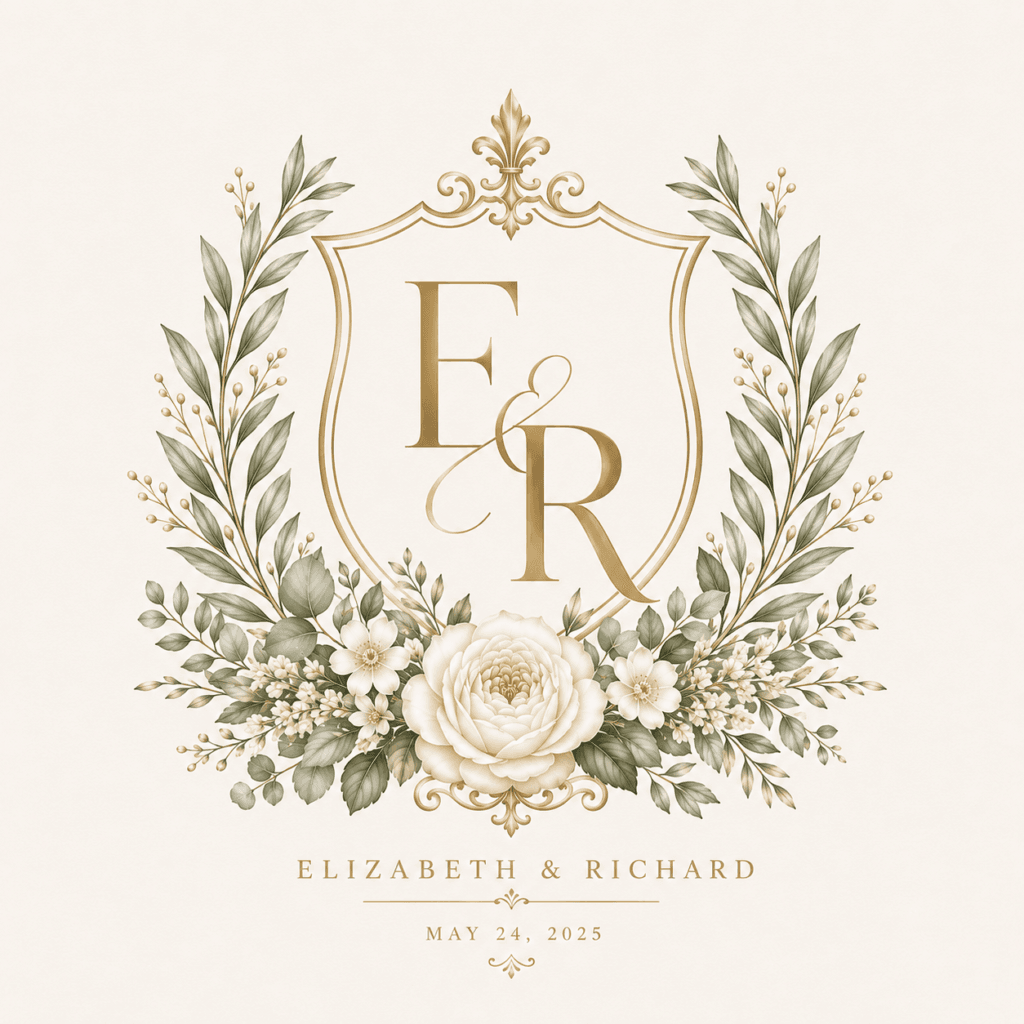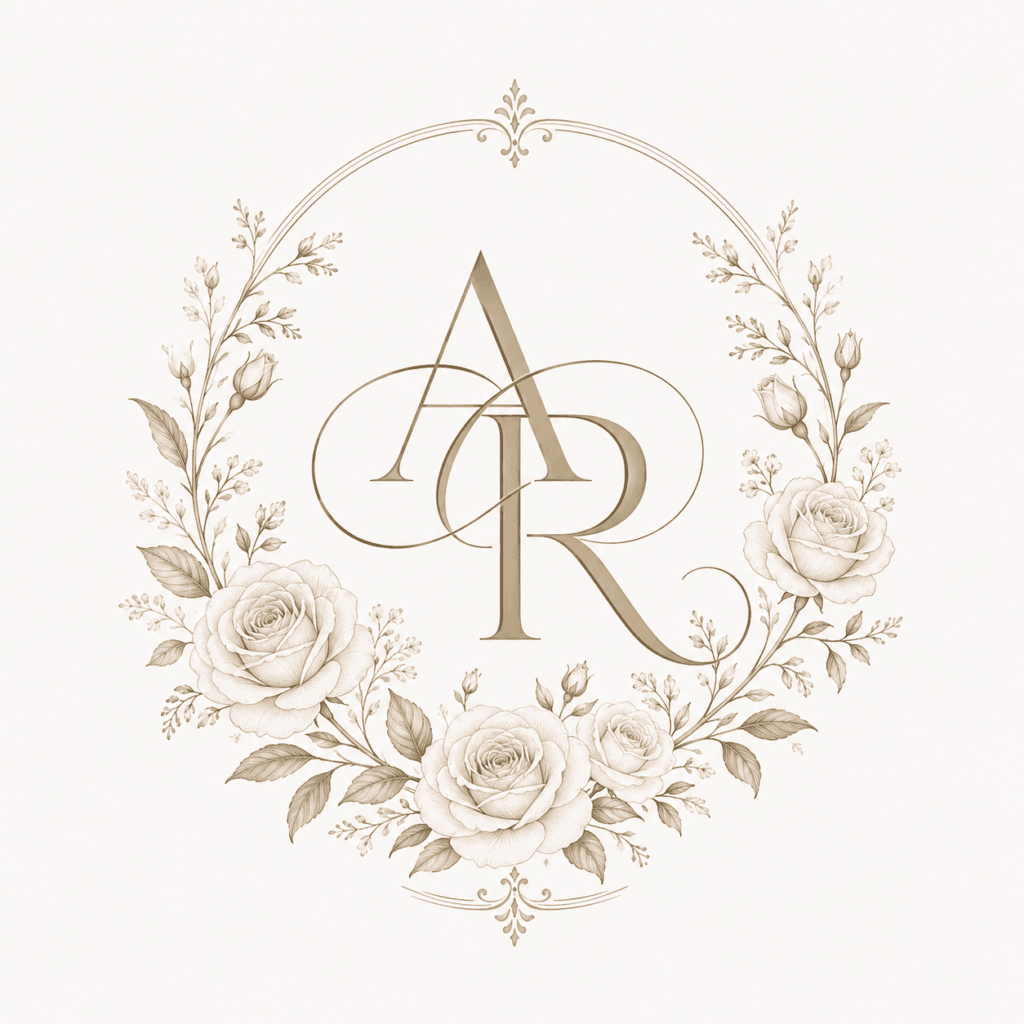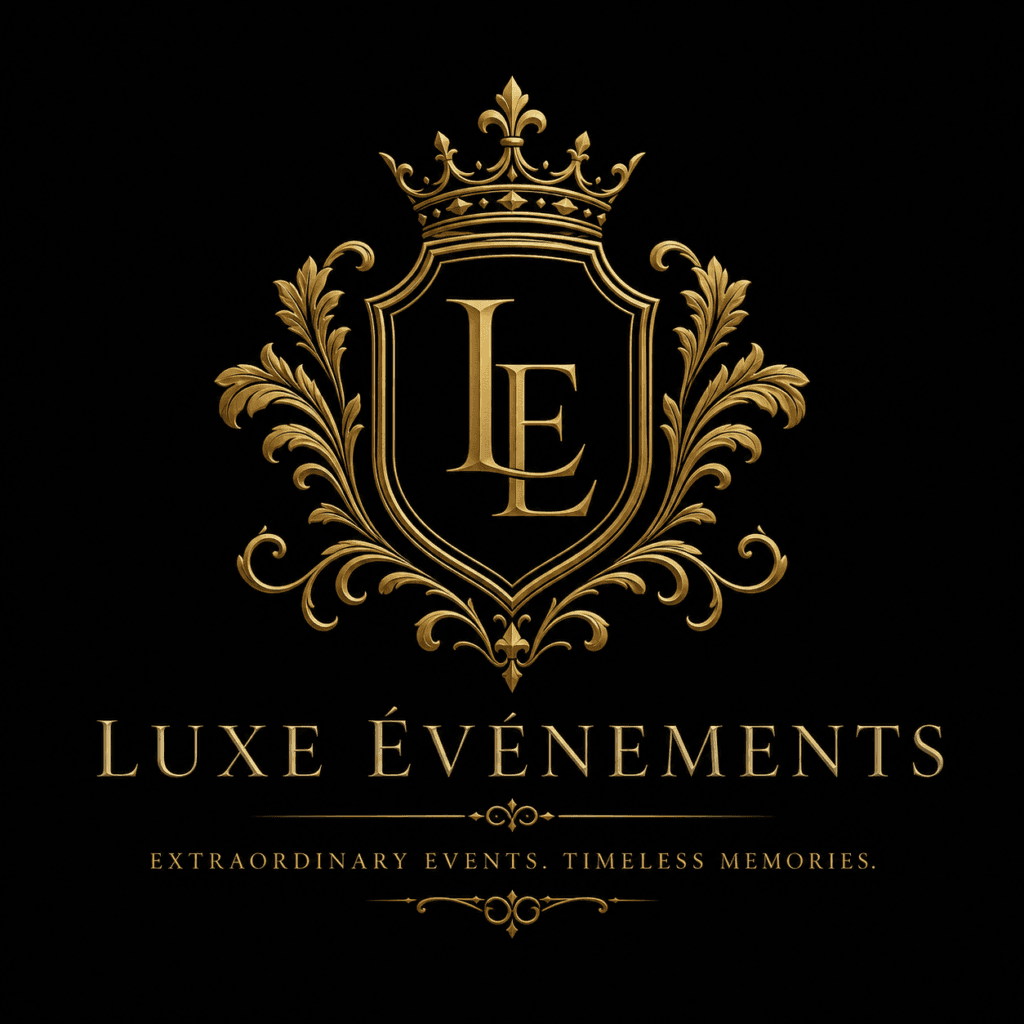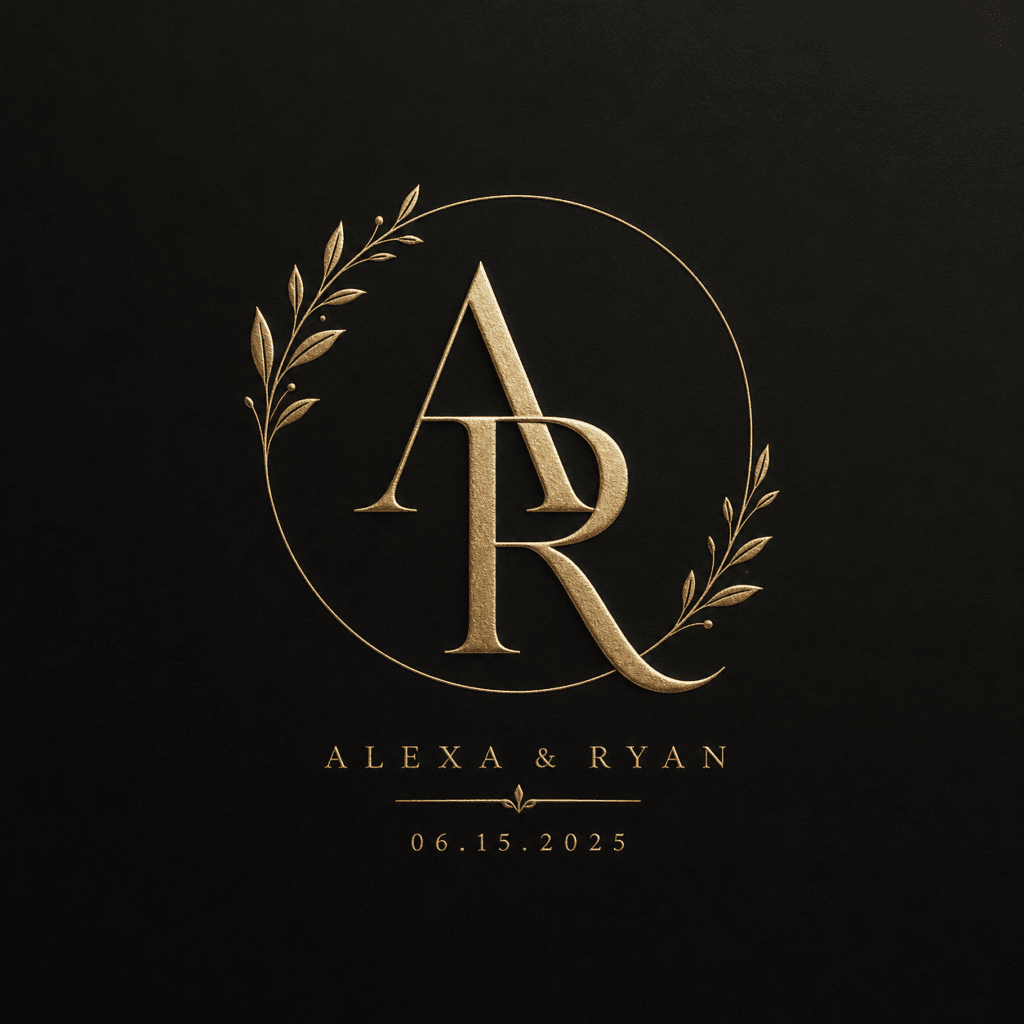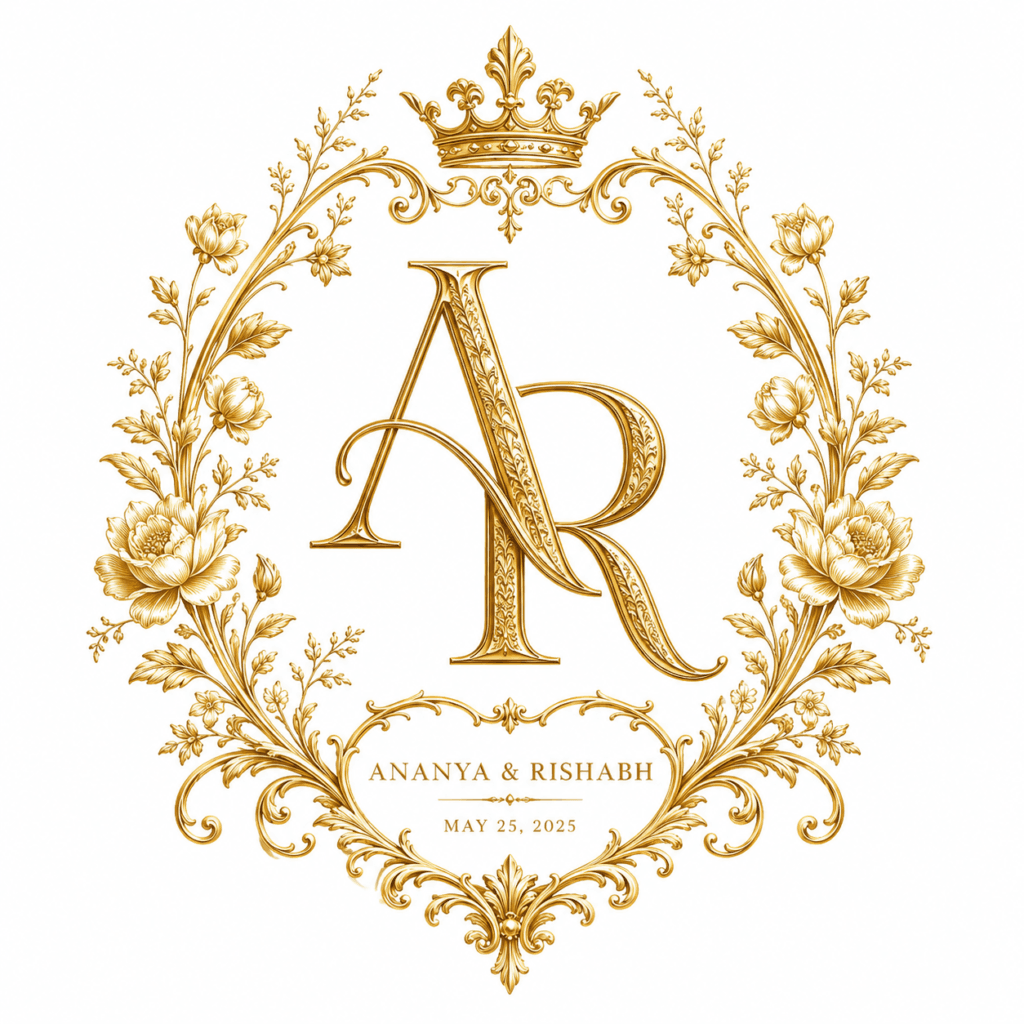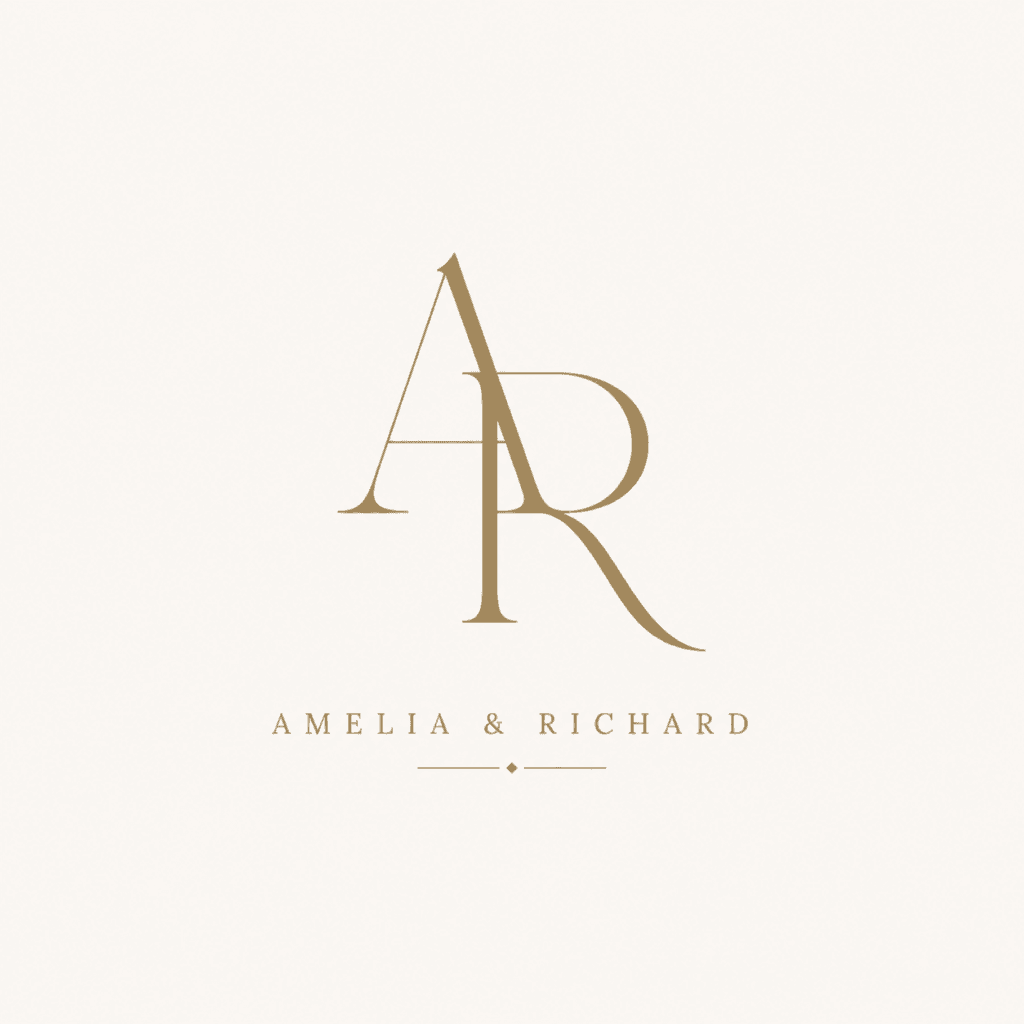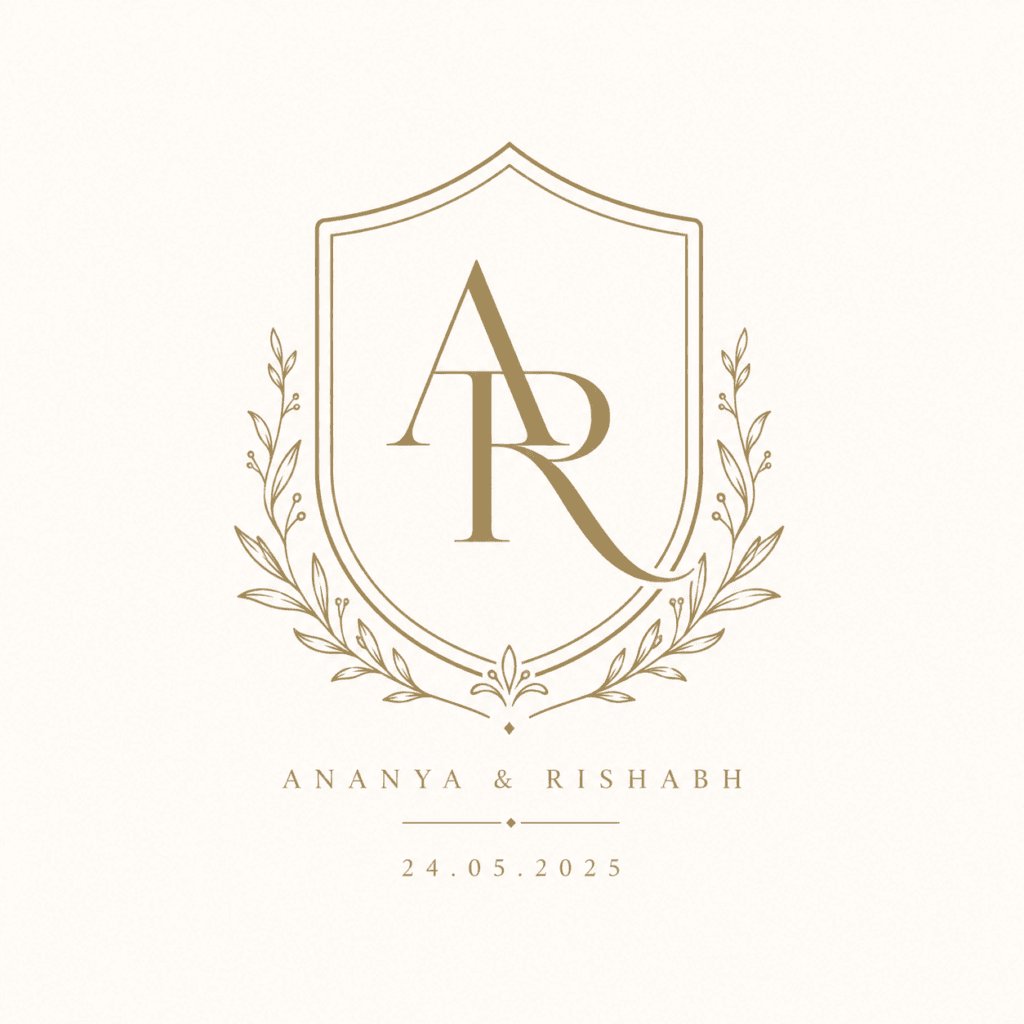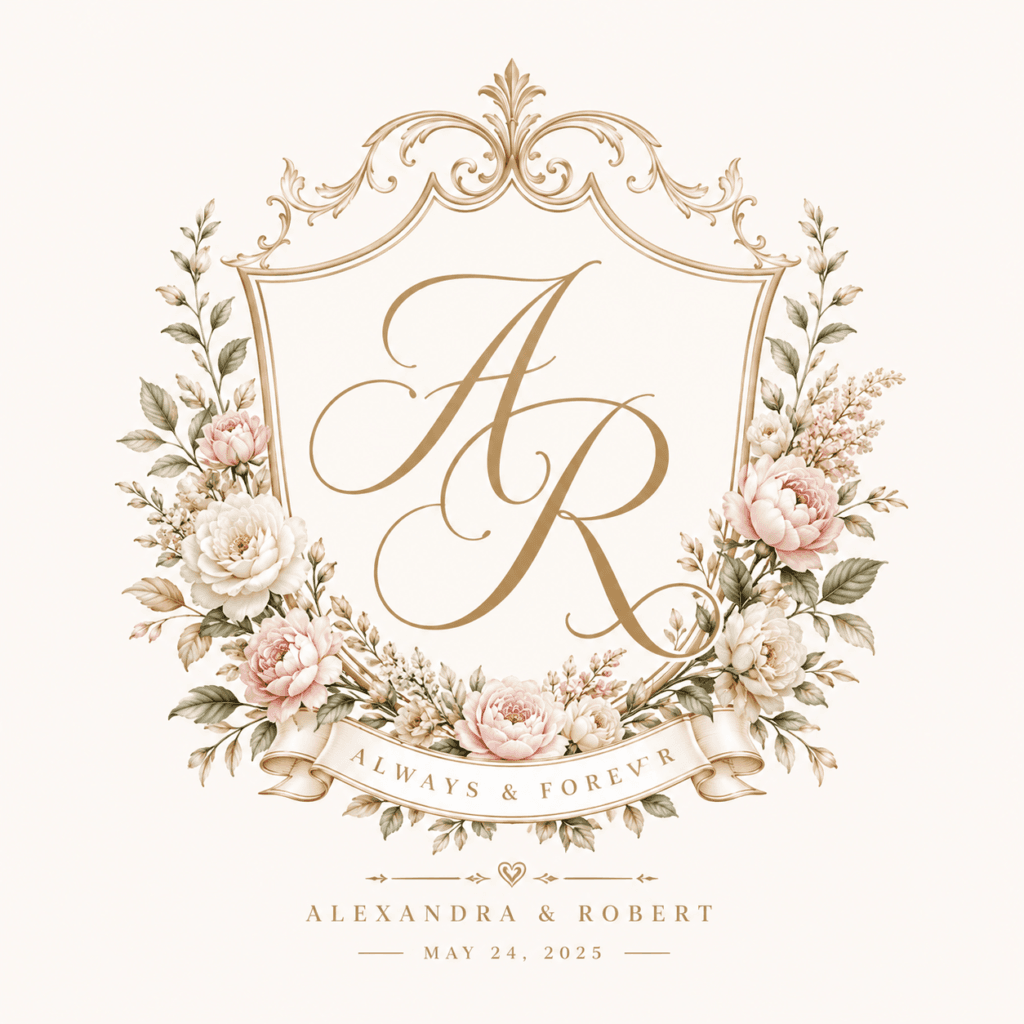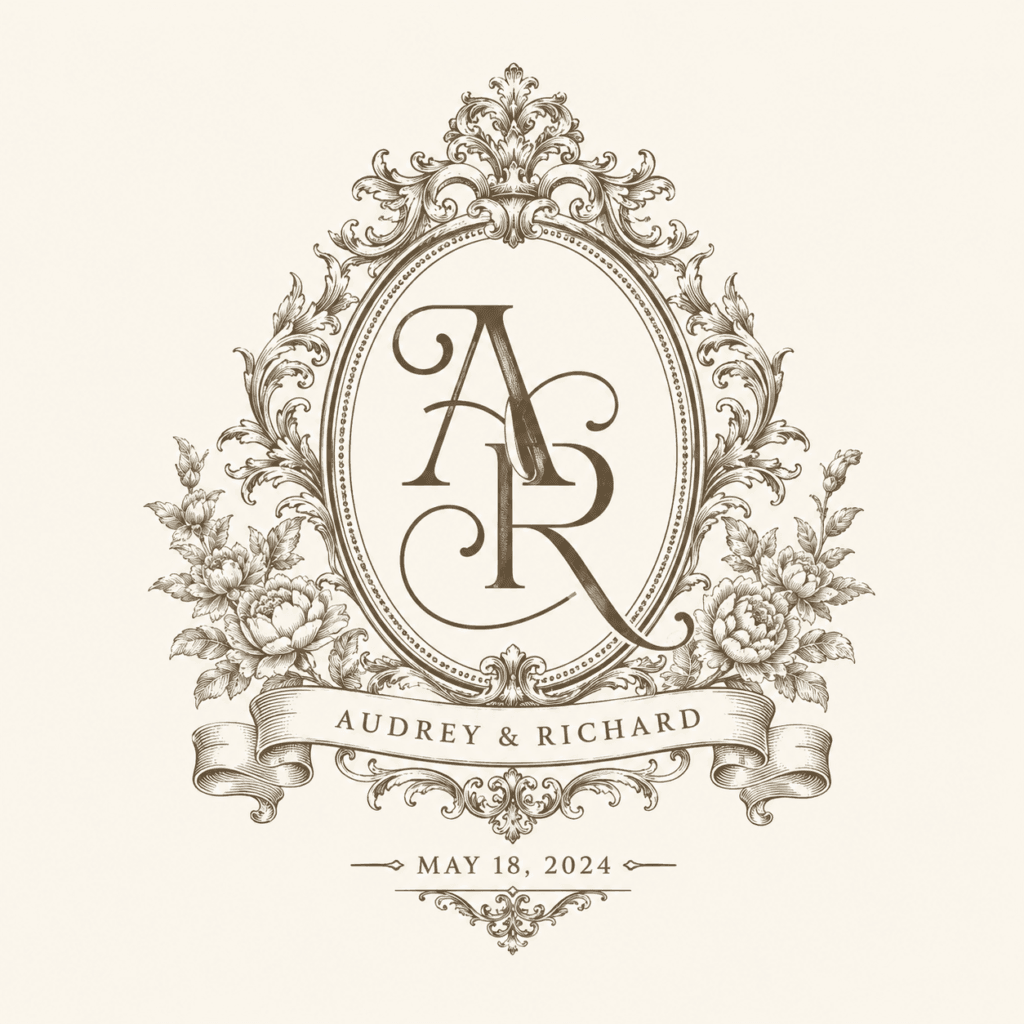
Using AI monogram logo prompts has become one of the fastest ways for wedding designers to explore elegant branding concepts, luxury crests, and personalized visual identities. Wedding branding often revolves around initials, romantic symbolism, floral elements, and timeless typography. With the right prompts, AI tools can generate beautiful monogram concepts that serve as inspiration for invitations, stationery, wedding websites, and event branding.
Modern wedding clients expect unique and personalized designs. Traditional monogram creation can take hours of sketching and refinement. However, AI monogram logo prompts help designers visualize multiple directions quickly while maintaining creative flexibility. These concepts can then be refined into professional branding systems.
From luxury wedding crests to minimal monogram marks, AI-generated concepts offer valuable starting points for creative exploration. The most effective prompts combine typography, decorative details, floral elements, and brand personality to create memorable designs.
In this guide, you will discover practical AI monogram logo prompts, copy-paste examples, wedding branding ideas, and creative techniques that help designers create elegant and timeless wedding identities.
Why AI Monogram Logo Prompts Are Useful for Wedding Designers
Wedding branding often requires custom design work.
Strong AI monogram logo prompts help designers:
- Generate concepts faster
- Explore multiple design directions
- Create luxury branding inspiration
- Visualize crest layouts
- Improve workflow efficiency
- Support client presentations
AI works best as a creative ideation tool rather than a final design solution.
Understanding Wedding Monogram Design
Wedding monograms combine initials into a decorative visual identity.
These designs often appear on:
- Invitations
- Save-the-date cards
- Menus
- Signage
- Wedding websites
- Packaging
Strong AI monogram logo prompts help create concepts that feel elegant and personalized.
Elements of a Successful Wedding Monogram
Professional monograms often include:
- Elegant typography
- Decorative flourishes
- Floral accents
- Symmetrical composition
- Luxury styling
These details help create timeless wedding branding.
AI Monogram Logo Prompts for Luxury Wedding Crests
Luxury wedding crests remain highly popular among couples seeking premium branding.
Prompt Example 1
Luxury wedding crest monogram, intertwined initials, elegant serif typography, symmetrical composition, floral wreath, gold foil aesthetic, premium wedding branding, timeless design, white background, highly detailed
Prompt Example 2
Sophisticated monogram wedding crest, ornate floral frame, romantic luxury style, classic European wedding aesthetic, elegant typography, refined decorative details
These AI monogram logo prompts help generate premium wedding crest concepts.
Example Luxury Wedding Crest Monogram.
AI Monogram Logo Prompts for Floral Wedding Branding
Floral monograms are among the most requested wedding styles.
Prompt Example 1
Floral monogram logo, intertwined initials, delicate roses, botanical wreath, luxury wedding branding, elegant line art, sophisticated composition, timeless romantic design
Prompt Example 2
Wedding monogram with peonies and greenery, custom initials, luxury floral crest, refined botanical illustration, premium invitation design
Floral concepts create romantic visual identities.
Example Floral Monogram Logo.
AI Monogram Logo Prompts for Minimal Wedding Logos
Many couples prefer clean and modern aesthetics.
Prompt Example 1
Minimal monogram logo, elegant initials, clean serif typography, luxury wedding branding, simple composition, modern sophistication, premium stationery style
Prompt Example 2
Modern wedding monogram, minimal line art, luxury typography, refined layout, contemporary branding aesthetic
Minimal designs often remain timeless.
Example Minimal Monogram Logo.
AI Monogram Logo Prompts for Vintage Wedding Crests
Vintage-inspired branding creates a sense of heritage and elegance.
Prompt Example 1
Vintage wedding crest monogram, Victorian ornamental details, decorative flourishes, elegant initials, luxury heritage branding, timeless wedding design
Prompt Example 2
Antique monogram crest, classic engraving style, ornate border, sophisticated wedding identity, premium stationery aesthetic
These AI monogram logo prompts help create traditional wedding concepts.
Example Vintage Wedding Crest Monogram.
AI Monogram Logo Prompts for Botanical Crest Designs
Botanical styling remains popular in wedding branding.
Prompt Example 1
Botanical monogram logo, intertwined initials, olive branches, luxury wedding crest, elegant greenery illustration, refined wedding branding
The best results come from combining detailed prompts with strong typography, thoughtful composition, and refined branding principles. By incorporating floral elements, luxury aesthetics, and custom initials, designers can create timeless wedding identities that feel both personal and professional.
Whether you are designing invitations, stationery suites, wedding websites, or complete branding systems, these AI monogram logo prompts can help inspire sophisticated and memorable wedding designs.